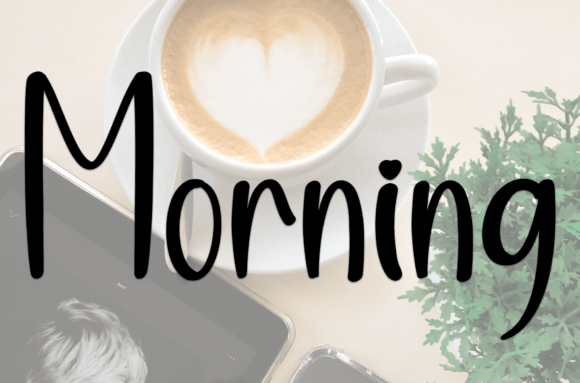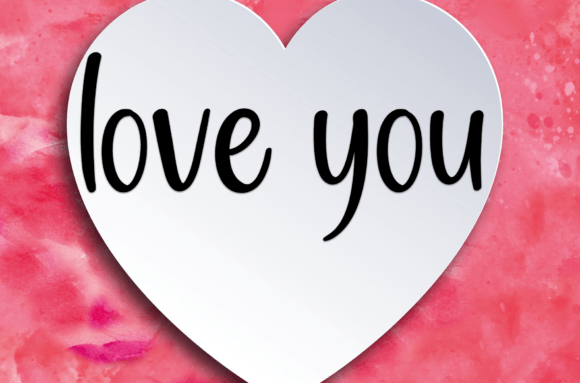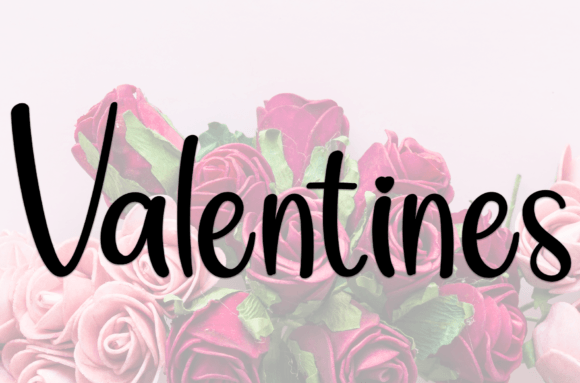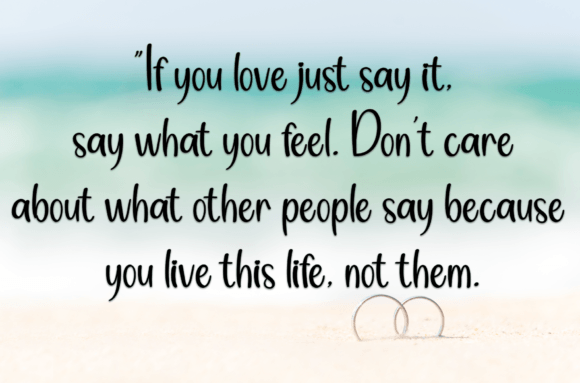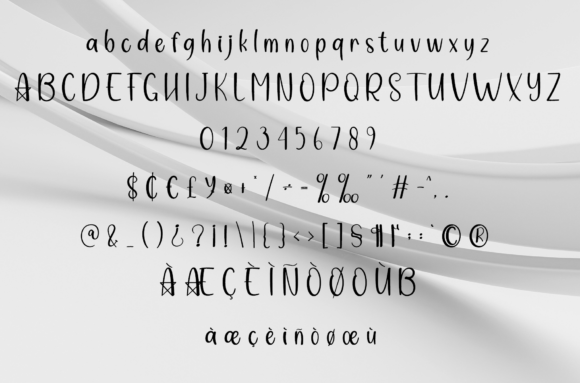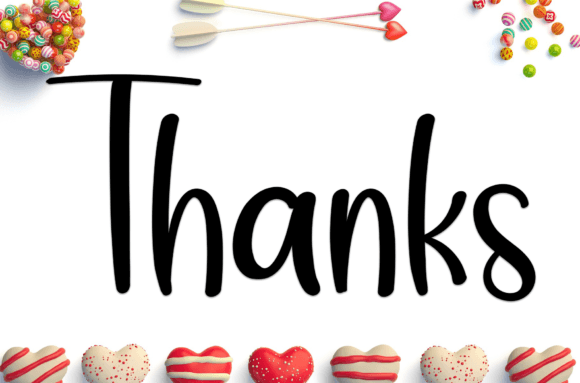
Love is in the Air: The Sweet Charm of Baby Valentine Font
Have you ever found yourself doodling hearts and flowers on a piece of paper, lost in the magic of love? That’s exactly where the Baby Valentine Font comes in – a sweet and friendly handwritten font that captures the essence of romance and playfulness. This adorable font is perfect for adding a touch of whimsy to your designs, making it an ideal choice for writing wedding invitations, cards, or any other project that needs a fun and loving vibe.
As a designer, you know the importance of choosing the right font to convey your message. That’s where the Baby Valentine Font shines – its cute and fun style adds a personal touch to any design, making it truly special. Whether you’re creating a wedding invitation or a birthday card, this font is sure to bring a smile to your recipient’s face.
Baby Valentine Font Key Features
- Unique Characteristics: Whimsical, hand-drawn design, perfect for baby-related projects, Valentine’s Day, and other sweet occasions
Baby Valentine Font Review
I recently had the chance to work with the Baby Valentine Font, and I must say it’s a unique addition to any project. Here are my thoughts on this font.
- Uniqueness: The Baby Valentine Font stands out from the usual sans-serif fonts with its playful and whimsical design.
- Legibility: Despite its intricate details, the font remains legible at various font sizes and styles.
- Emotional connection: The font’s Valentine-inspired design creates an instant emotional connection, perfect for projects centered around love and relationships.
- Limited usage: The font’s romantic theme may not be suitable for projects that require a more professional or neutral tone.
- Difficulty in customization: The font’s intricate details can make it challenging to customize or edit for specific design needs.
Overall, the Baby Valentine Font is a great choice for projects that require a touch of whimsy and romance. While it may not be suitable for all types of projects, its unique design and emotional connection make it a valuable addition to any designer’s toolkit.
The Baby Valentine Font is ideal for creating playful and whimsical designs, such as:
- Baby shower invitations
- Children’s birthday party decorations
- Valentine’s Day cards and gift tags
Remember to use the font in moderation to avoid overwhelming your design.
Alternatives to Baby Valentine Font
Great Vibes is a beautiful, handwritten font that is perfect for creating a whimsical and romantic atmosphere. It is ideal for wedding invitations, greeting cards, and other special occasion designs. Great Vibes has a more elegant and refined look compared to Baby Valentine Font, which is more playful and casual.
Carolyna Pro is a modern, elegant script font that is perfect for creating a sophisticated and luxurious look. It is ideal for high-end branding, packaging, and advertising designs. Carolyna Pro has a more polished and refined look compared to Baby Valentine Font, which is more casual and playful.
Amatic SC
Amatic SC is a modern, handwritten font that is perfect for creating a bold and playful atmosphere. It is ideal for streetwear branding, poster designs, and other urban-themed designs. Amatic SC has a more edgy and modern look compared to Baby Valentine Font, which is more classic and vintage.
Lobster is a fun, cursive font that is perfect for creating a playful and casual atmosphere. It is ideal for social media branding, website designs, and other digital projects. Lobster has a more playful and quirky look compared to Baby Valentine Font, which is more elegant and refined.
Q: What is the recommended font size for using Baby Valentine Font?
The recommended font size for Baby Valentine Font is between 12-24 points, depending on the intended use and design context. Using a font size outside of this range may affect readability and legibility. Experiment with different font sizes to find the optimal size for your design.